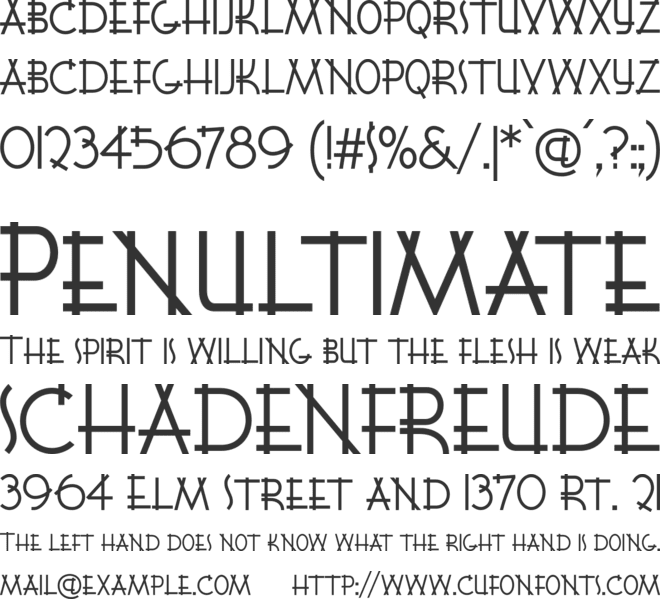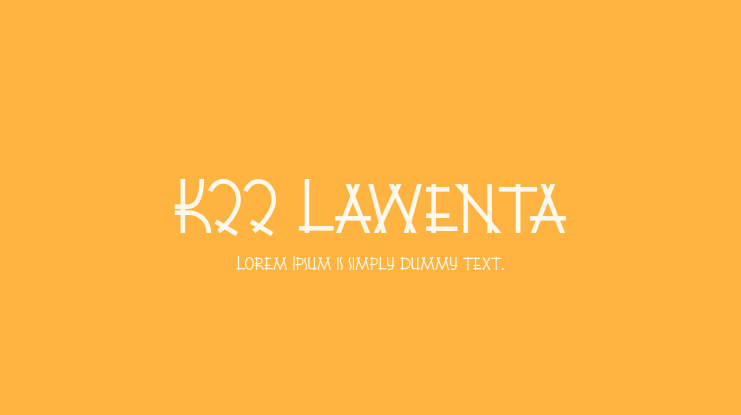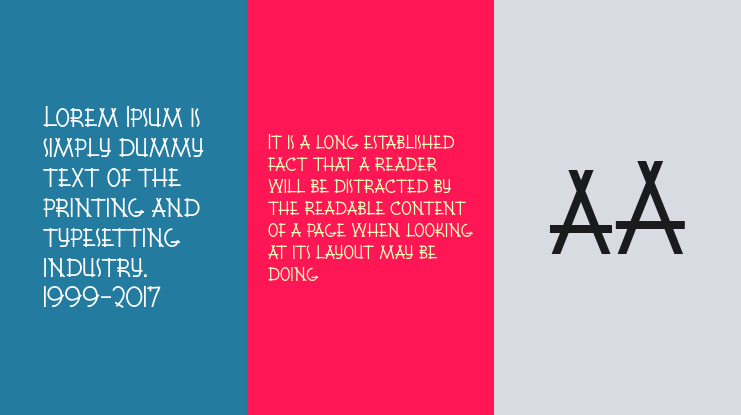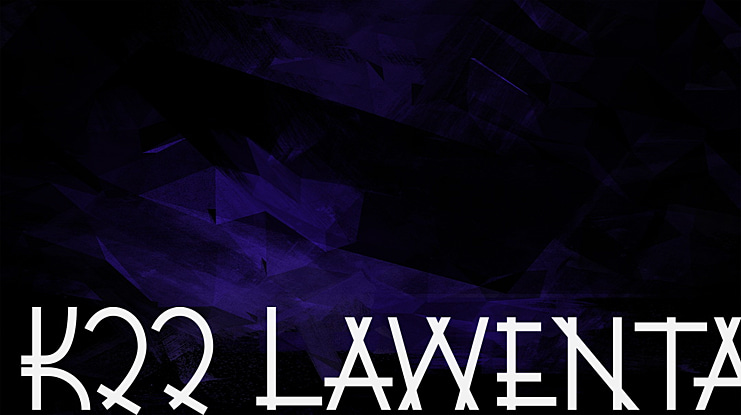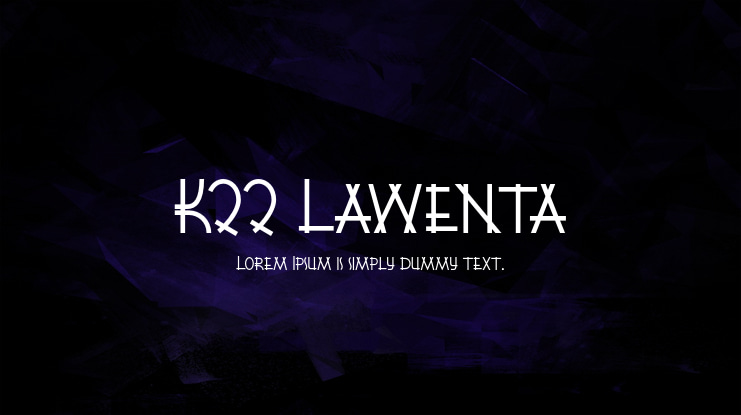
K22 Lawenta Font
K22 Lawenta is not a clone of Nick Curtis' Wigwam NF. It just so happened that Nick Curtis and I used the same alphabet from a published material. I learned about Wigwam NF after posting the font. Nick Curtis made changes to the published materials while I stuck with the design. The published material only has the alphabet and mnumerals. All other characters in the font should be different as these were created by the person who made the font - Nick Curtis for Wigwam NF and me for K22 Lawenta. Any similarities, if ever, is purely coincidental.